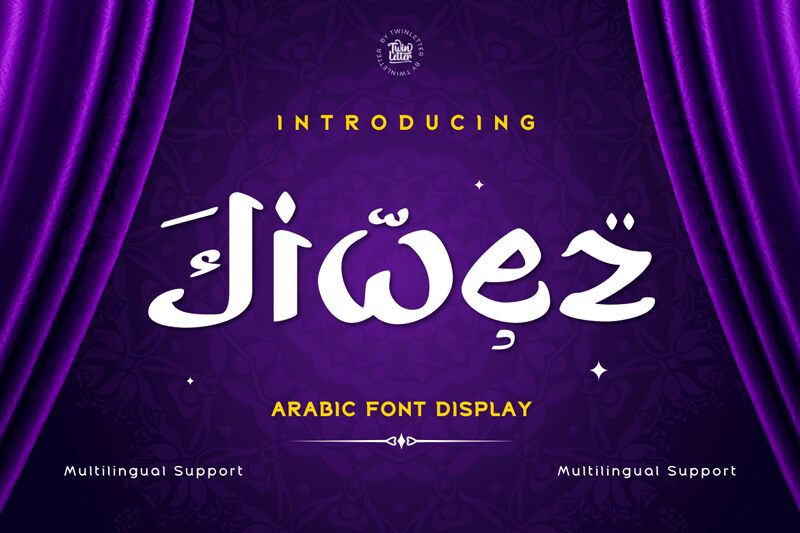
Jiwez, a bold semi-expanded font by twinletter, brings a touch of luxury to your designs. Its faux Arabic style adds a classic yet modern feel, making it ideal for creating elegant titles and cover pages.
This premium font is perfect for projects that demand sophistication and refinement. Whether you're designing high-end invitations or luxurious branding materials, Jiwez's easy-to-read fonts and simple structure will elevate your typeface game.
Let this font be the crowning jewel in your creations, adding an air of opulence to any project you embark upon.